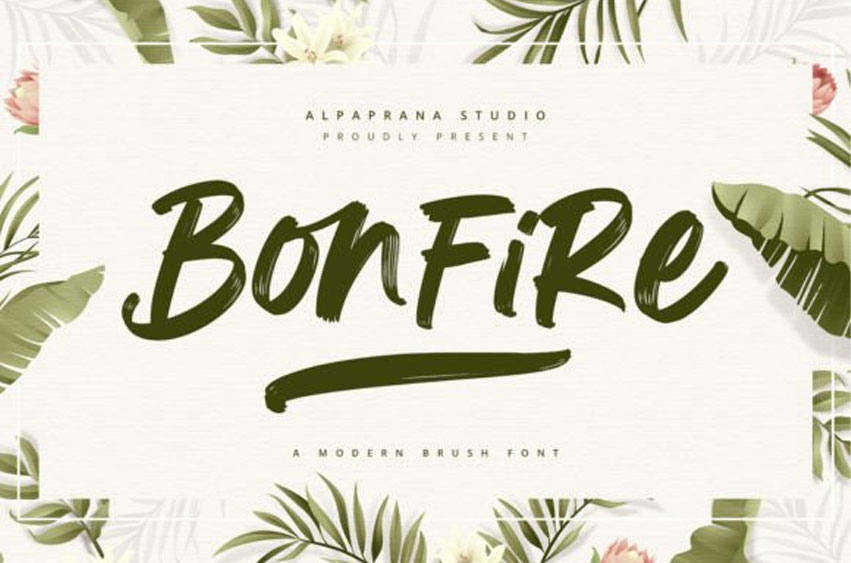
Bonfire Font is a trendy and bold handwritten brush font.
Whether you use it for cartoon-related designs, children’s games, or just any creation that requires a lovely touch, this font will be an amazing choice.